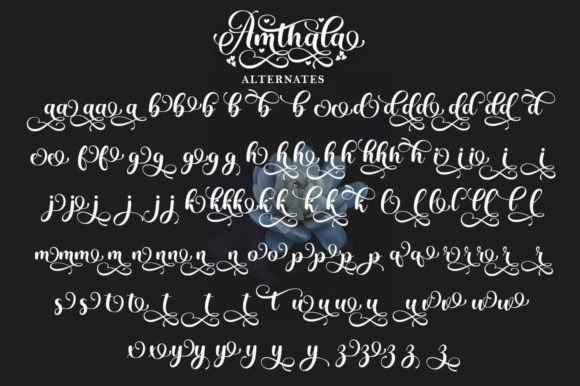
Amthala Font
Amthala is a romantic and sweet calligraphy typeface with characters that dance along the baseline. It will add a luxury spark to any design project that you wish to create! This font is PUA encoded which means you can access all of the amazing glyphs and ligatures with ease!